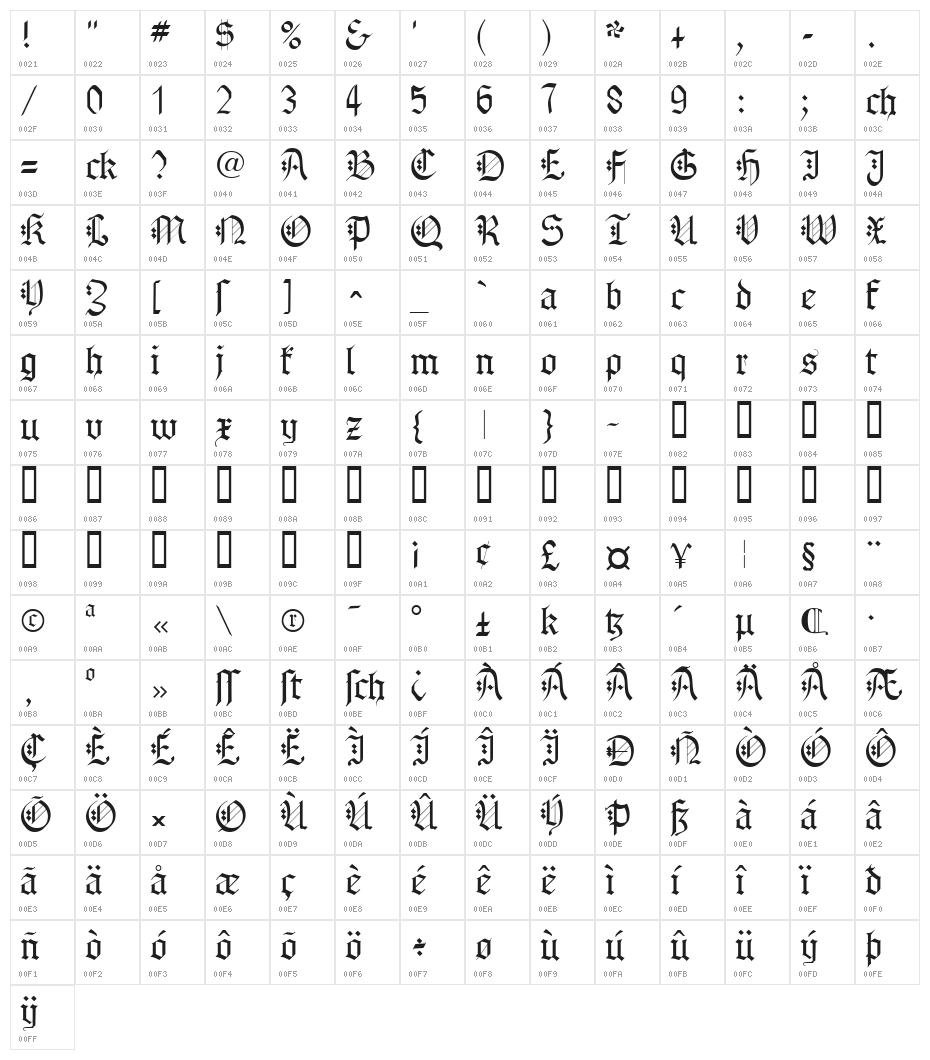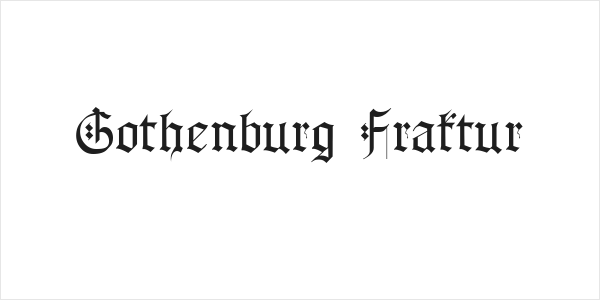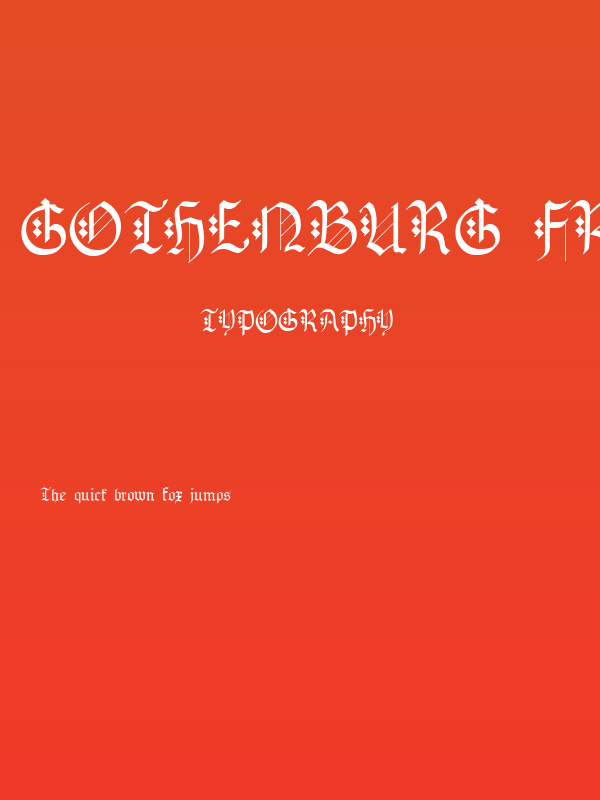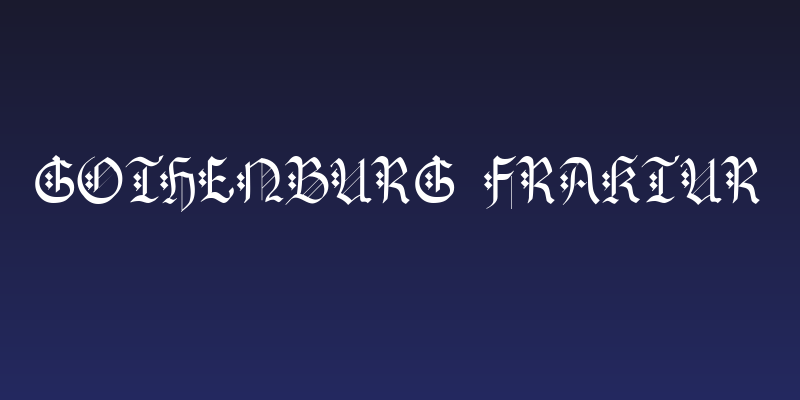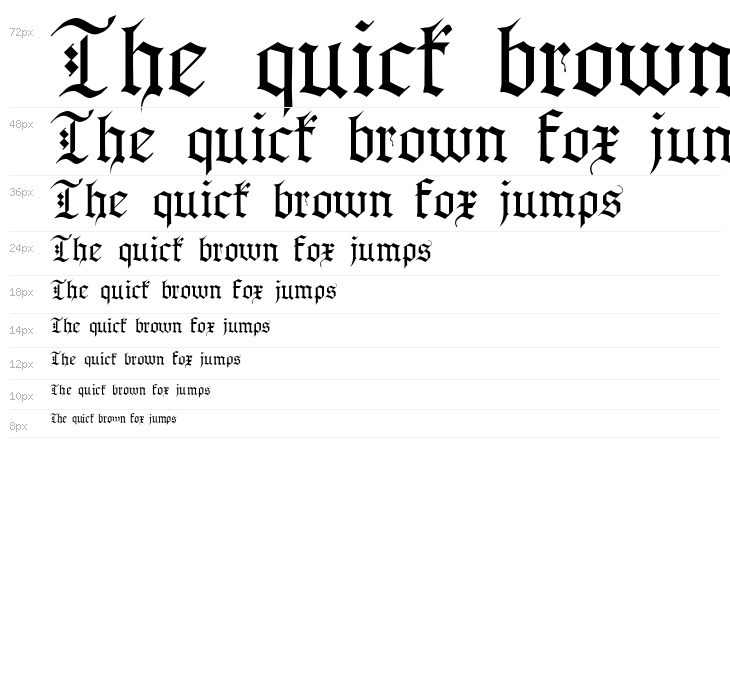
Gothenburg Fraktur Font
Gothenburg Fraktur Description
This font is a classic example of Blackletter style, characterized by its intricate and ornate letterforms. The uppercase letters feature sharp, angular lines with decorative elements, while the lowercase letters maintain a consistent style with a slightly more rounded appearance. The numbers are bold and follow the same intricate design, making them stand out. Special characters are equally ornate, adding to the overall cohesive look. The font's historical and traditional design is reminiscent of medieval manuscripts, offering a sense of elegance and formality.
| Proposed Projects | Ideal for historical documents, certificates, wedding invitations, and branding that requires a classic and formal touch. |